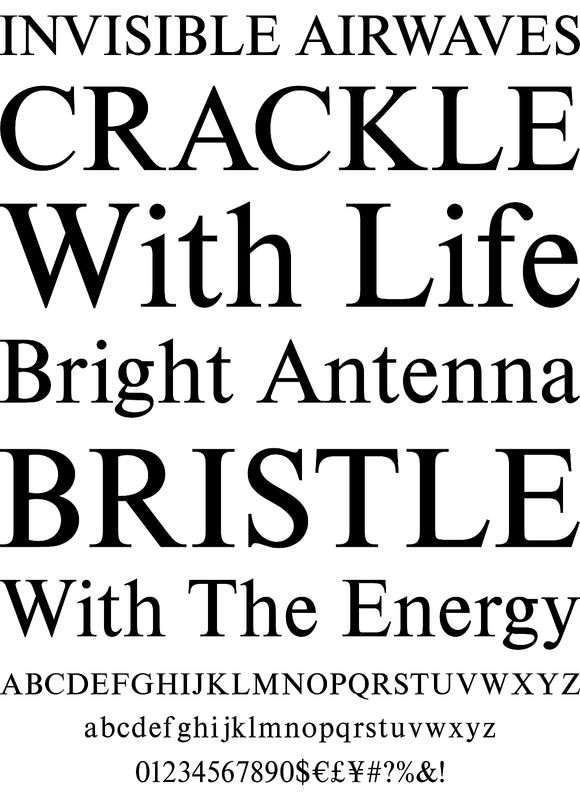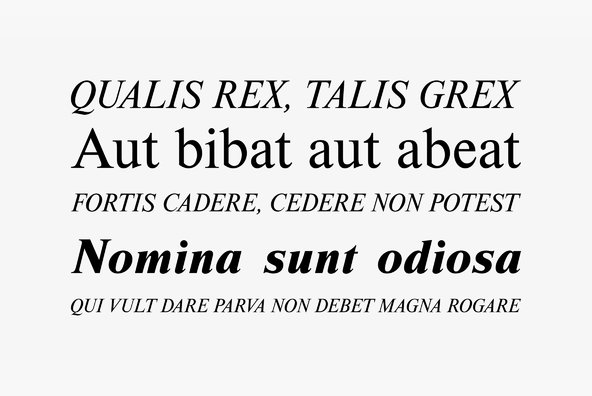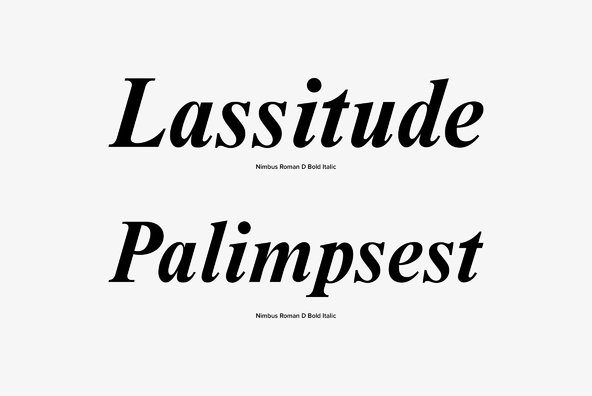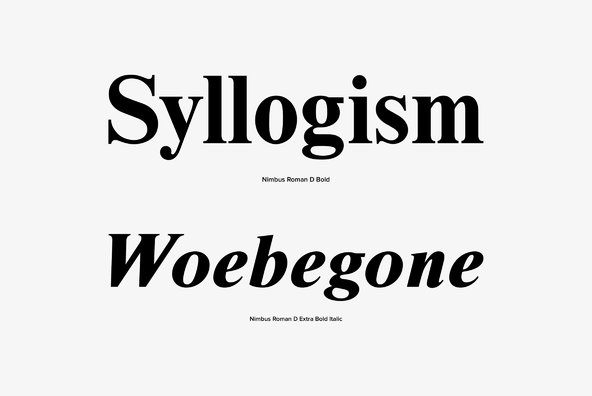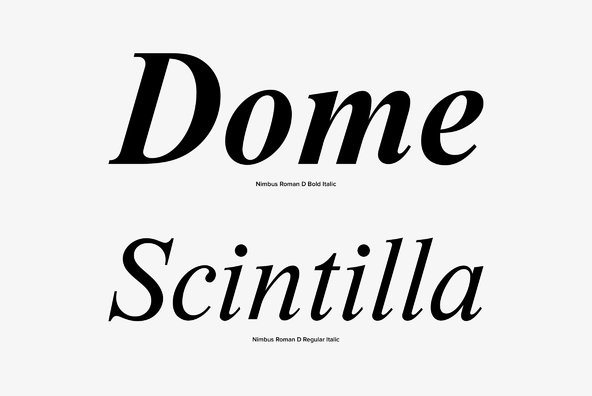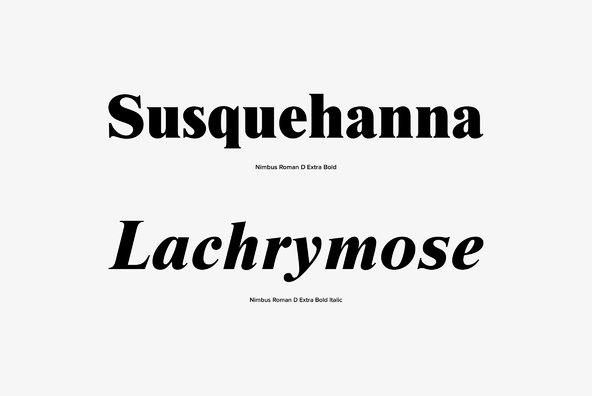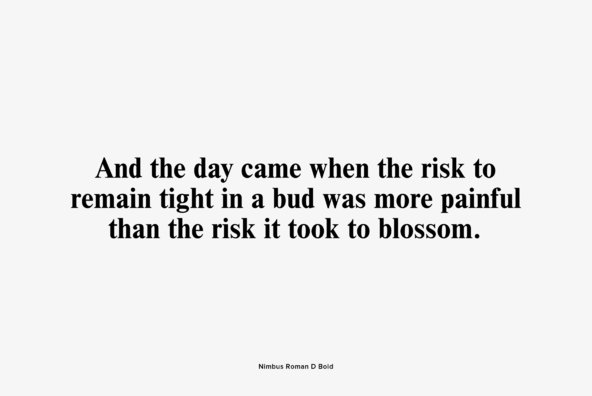
Nimbus Roman
Designed in 1982, Nimbus Roman is a serif font release by URW (Monotype). Contains language support for West, East, Turkish, Baltic, and Romanian.